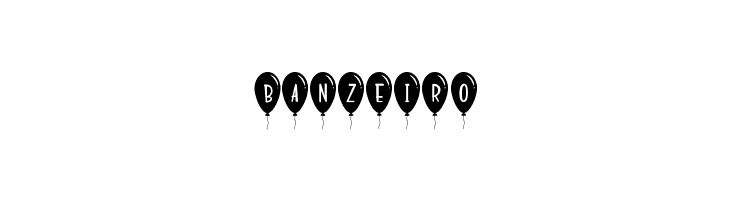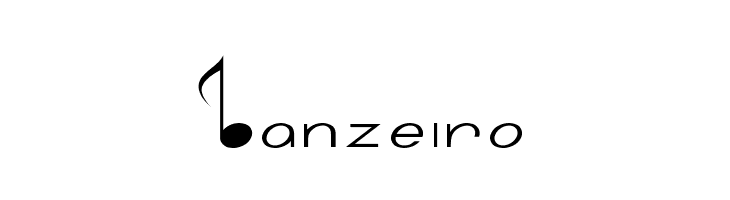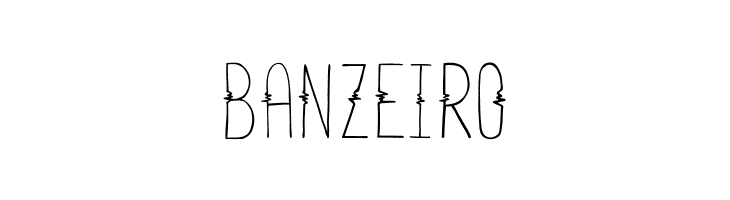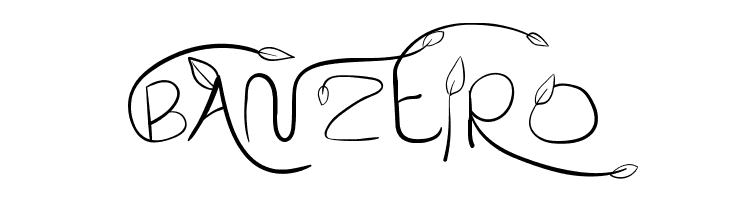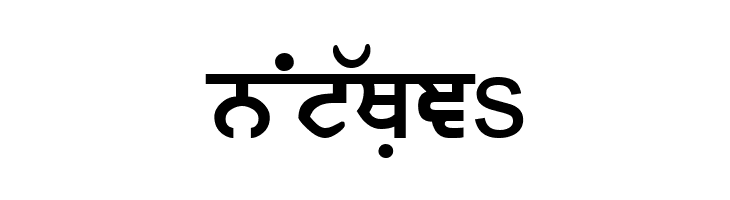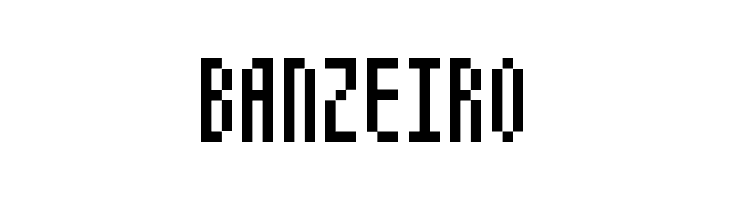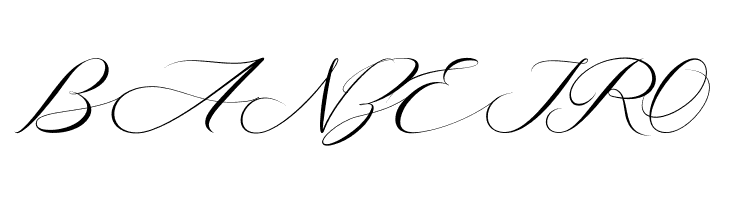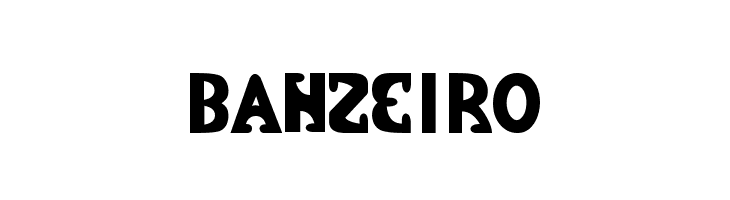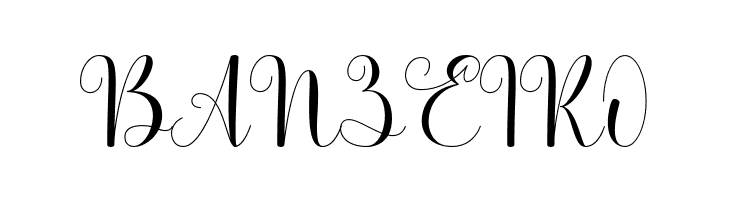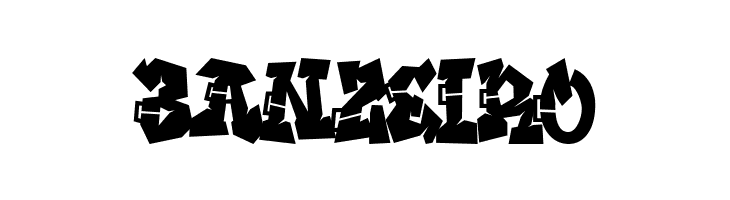
A playful, casual handwritten font with an organic flow.
A bold, distressed font with an eroded, edgy appearance.
A bold, playful, hand-drawn font with a whimsical and artistic style.
A whimsical, mushroom-themed decorative font with intricate details.
A music-themed decorative font with elements of musical notation.
A playful, floral-accented decorative font with bold, rounded characters.
Mountain West Conference collegiate sports team logos.
A bold, graffiti-inspired font with sharp, angular edges and a dynamic urban aesthetic.
An elegant, flowing script font with a classic calligraphic style.
A whimsical, leaf-inspired font with elegant curves and natural motifs.
A graceful script font with elegant loops and swashes, perfect for romantic and artistic designs.
A playful font with characters inside balloon shapes, perfect for festive designs.
A decorative font with geometric patterns and thin outlines.
A versatile sans-serif font with both decorative and bold variations.
A bold, modern font with thick strokes and rounded edges.
A modern, light sans-serif font with a clean and minimalist design.